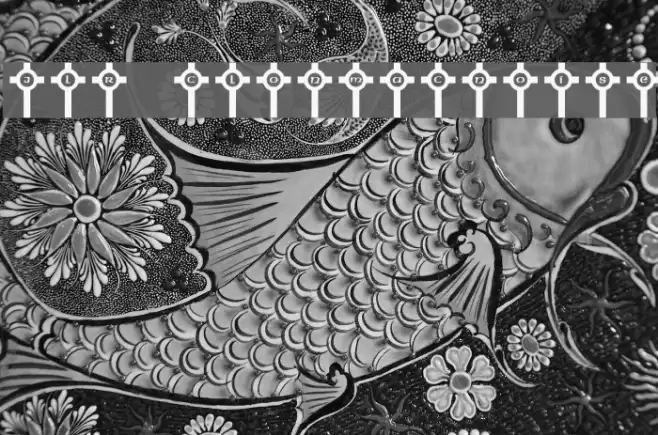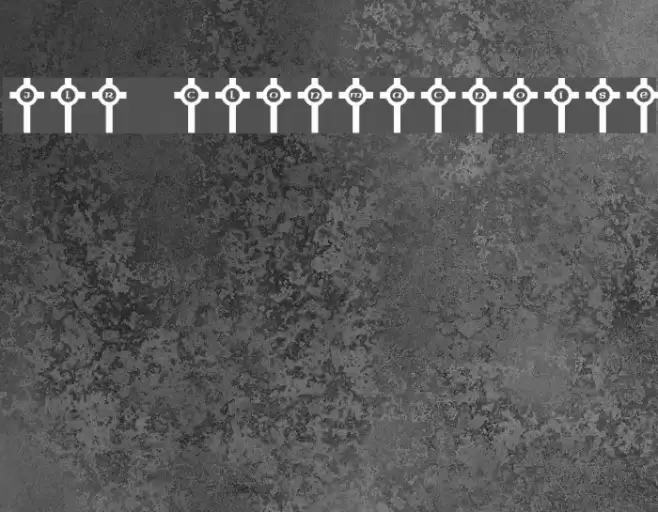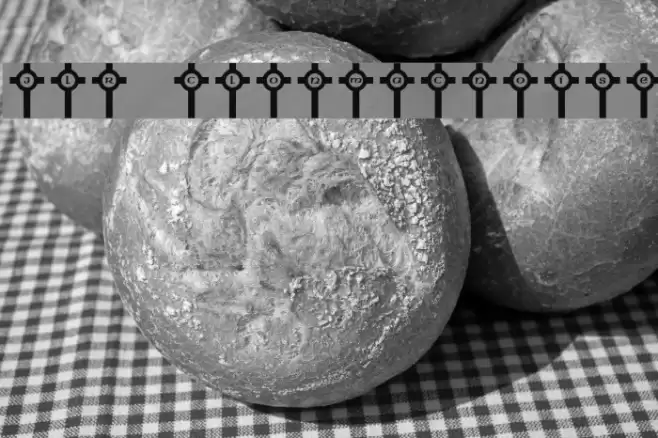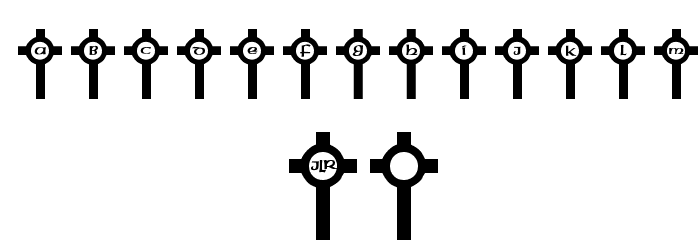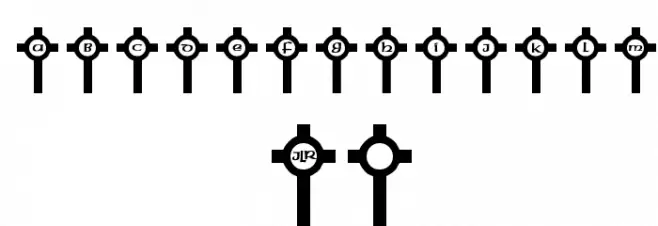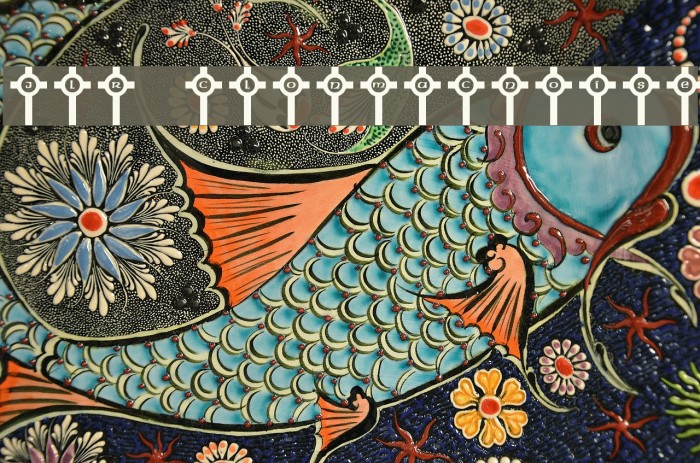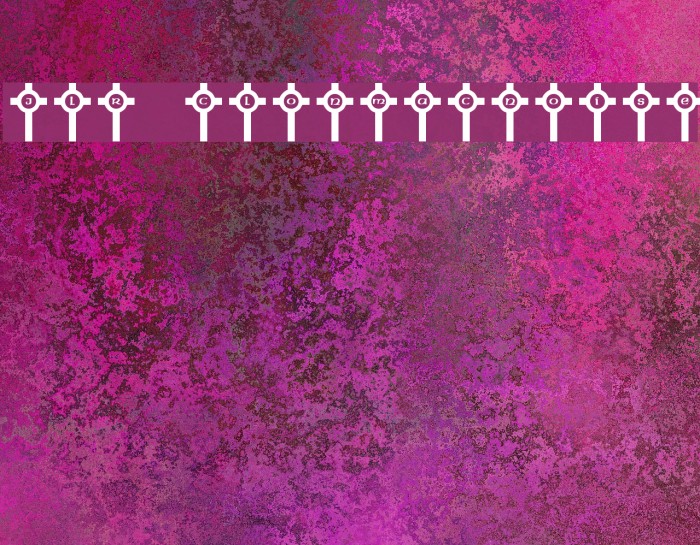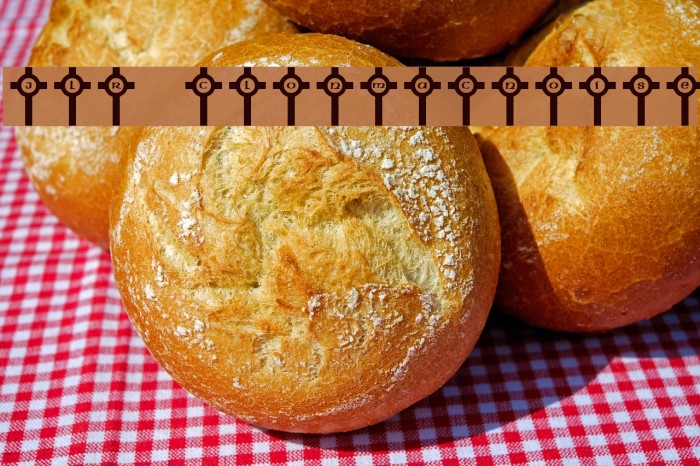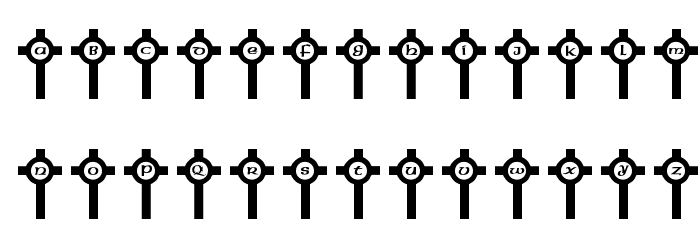
JLR Clonmacnoise Font
JLR Clonmacnoise Description
This font features a unique design where each character is enclosed within a stylized Celtic cross, reminiscent of ancient stone carvings. The letters are bold and clear, set against the intricate backdrop of the cross, which adds a decorative and historical touch. The font blends traditional Celtic motifs with modern typography, making it both eye-catching and culturally rich. It is ideal for projects that require a touch of heritage and elegance, such as themed events, historical publications, or cultural branding.
A decorative font with characters enclosed in Celtic crosses, blending tradition with modern style from Uncategorized fonts.
- Proposed Projects: Ideal for cultural branding, historical publications, themed events, and decorative signage.
- Use Case: Logos, Headlines, Decorative text